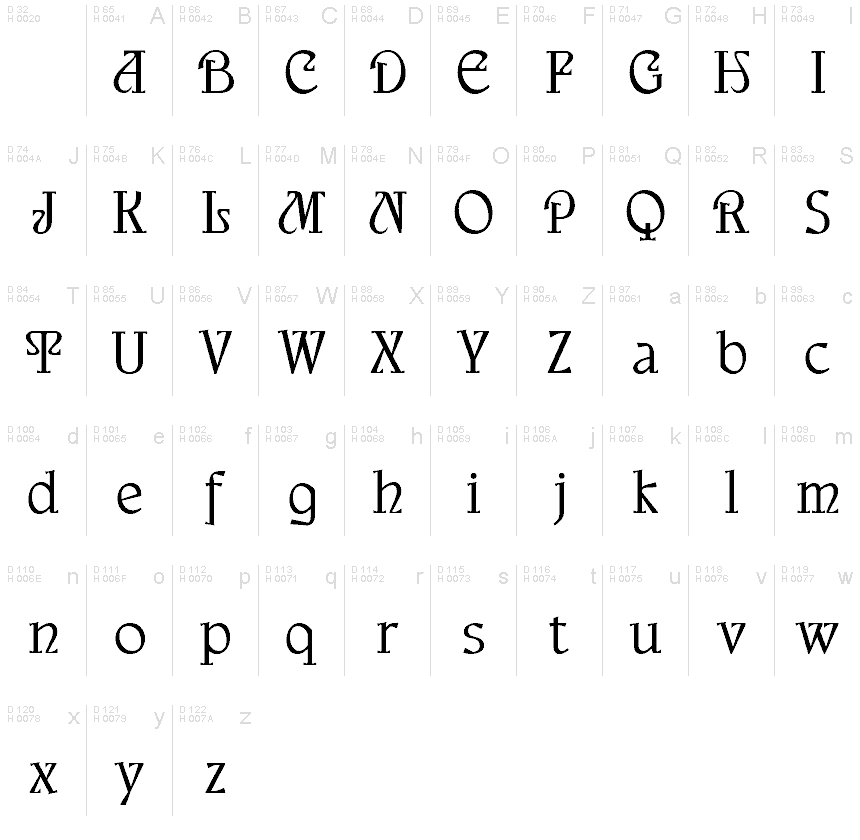
CS Morish Regular Demo
CS Morish font is a stunning vintage serif font created by Craft Supply Co. With its elegant and decorative characters, the font offers a classic appeal with a modern touch. The historical undertones and artistic flair balance out beautifully to produce an impressive, versatile typeface for all your needs.